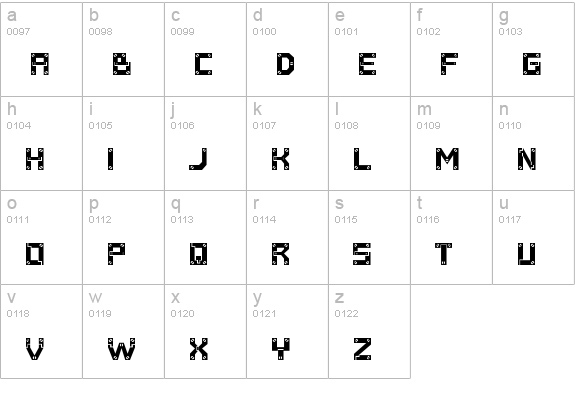
Baumarkt Font Details
Baumarkt font is a visually striking typeface that exudes a modern and bold aesthetic. With its clean lines and sharp edges, this font is perfect for making a statement in any design project. The strong and confident appearance of Baumarkt font makes it ideal for headlines, titles, and branding materials. What sets Baumarkt font apart is not only its stylish design, but also the fact that it is available for free download at FontsMarket.com. This means that designers and creatives have easy access to this high-quality font without any cost involved. Whether you're working on a poster, website, or logo, Baumarkt font offers a versatile and eye-catching option that will elevate your design to the next level. Download Baumarkt font today from FontsMarket.com and unleash its powerful impact on your creative projects.